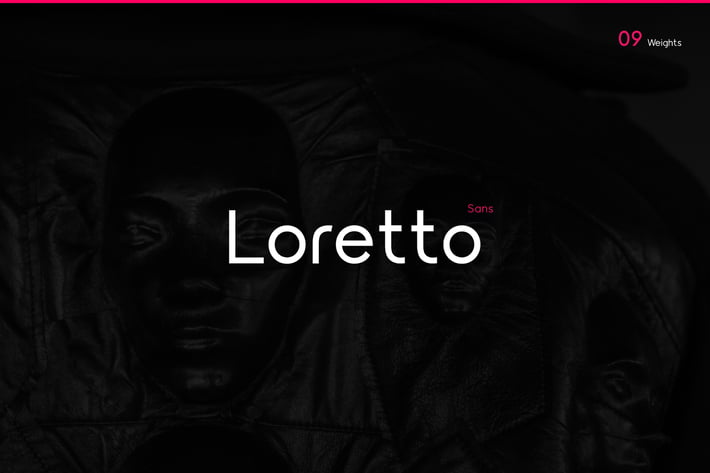
Loretto Sans - Elegant Typeface + Webfonts
Loretto Sans Font Family
Loretto is a Minimal, Elegant, clean and beautiful font family with "9" Font weights.
is perfectly crafted for logos, magazines, advertisements, websites, headlines, titles, captions, UIs, games, apps, films, apparel and more.
09 Font Weights
uppercase and lowercase letters
multi-language support
numbers
punctuation
ligatures